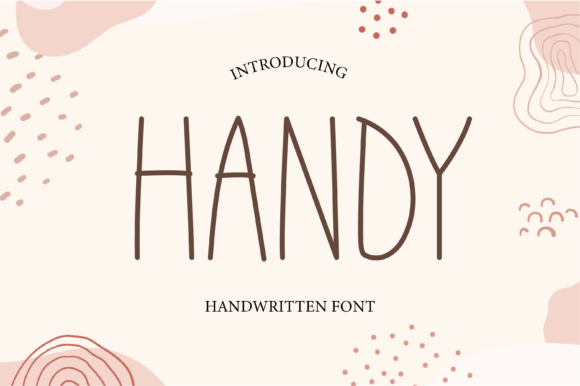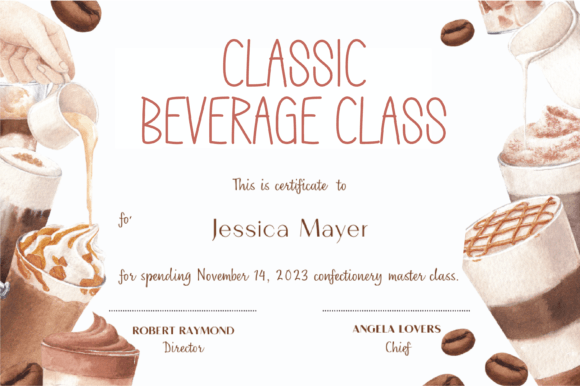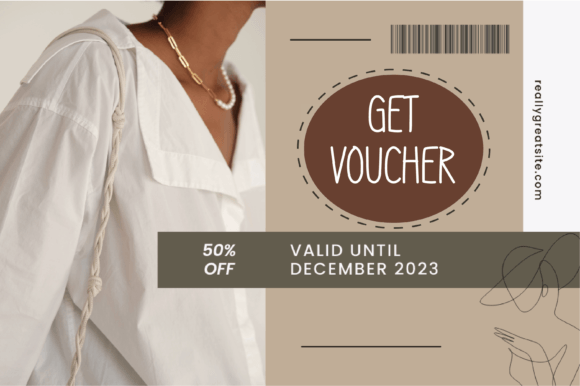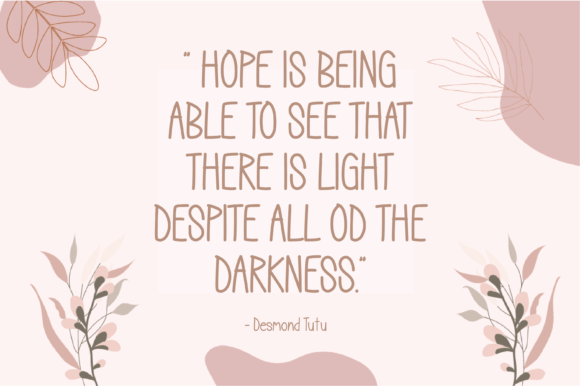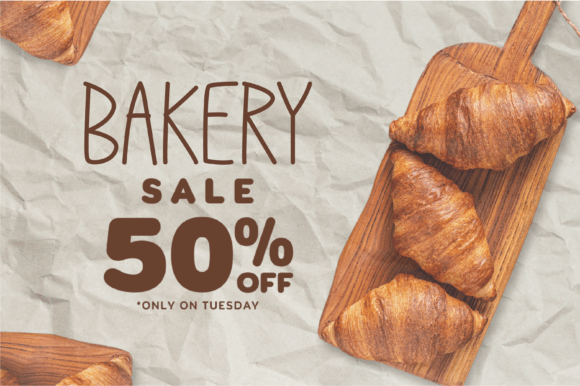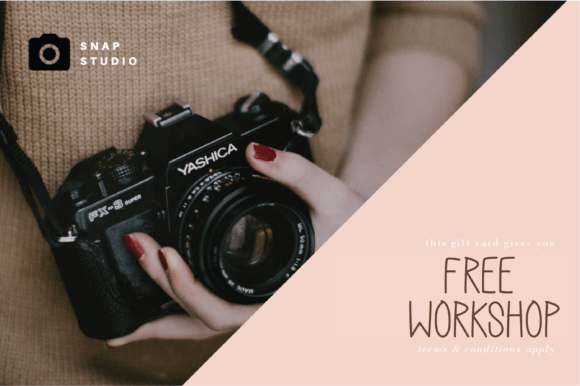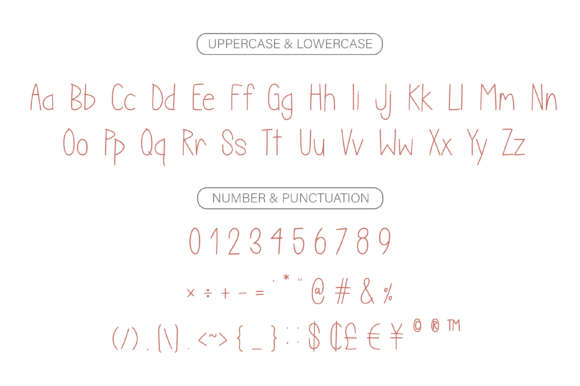
Bring Your Creativity to Life with Handy Font
Do you remember that moment when you were brainstorming a creative idea and suddenly, the perfect font came to mind? It’s like the whole project started to take shape, and you couldn’t wait to bring it to life! For many designers, that moment is a regular occurrence, but finding the right font to match their vision can be a challenge. Enter Handy Font – a friendly handwritten font designed to turn any creative idea into a true standout.
Whether you’re working on a school project, a personal blog, or a professional design, Handy Font is the perfect addition to your toolkit. Its cute and playful style makes it easy to add a personal touch to any project, and its versatility means it can be used for a wide range of applications. With Handy Font, you can bring your ideas to life and make them truly shine.
Key Features of Handy Font
- Character Set: The font features a comprehensive character set, including Latin, Cyrillic, and Greek alphabets, as well as a range of punctuation marks and symbols.
- Unique Characteristics: Handy Font features a distinctive, modern design with clean lines and a subtle texture, making it perfect for use in digital and print media.
- Font Weight and Style: The font is available in three weights: Light, Regular, and Bold, as well as three styles: Normal, Italic, and Oblique, providing users with a range of options to suit their design needs.
Handy Font Review
I recently had the chance to work with Handy Font, and I must say it’s been an interesting experience. Here’s my honest review:
- Customizability: Handy Font offers a wide range of customization options, from font sizes to line heights. This makes it a great choice for designers who need to fine-tune their typography.
- Limited character set: While Handy Font has a wide range of customization options, its character set is somewhat limited. This may not be a problem for simple projects, but it could be a concern for more complex designs.
Practical Application Guide for Handy Font
4. Use the Handy Font for headings, subheadings, or body text to create a consistent and visually appealing design.
3. Use the Handy Font to create typography-focused designs, such as posters, brochures, or social media graphics.
Tips for Getting the Most Out of Handy Font
Use the Handy Font consistently throughout your design to create a cohesive look.
Experiment with different font sizes, colors, and styles to add visual interest to your design.
Combine the Handy Font with other design elements, such as images or graphics, to create a dynamic and engaging design.
Headings and subheadings for blog posts, articles, or social media posts.
Body text for websites, blogs, or marketing materials.
Q: Can I customize Handy Font for my specific design project?
Yes, Handy Font is a highly customizable font. You can adjust its weight, width, and other parameters using your design application’s font editing tools. Additionally, you can use font hinting and kerning techniques to fine-tune the font’s appearance. However, please note that some advanced customization options may require expertise in font editing and design.